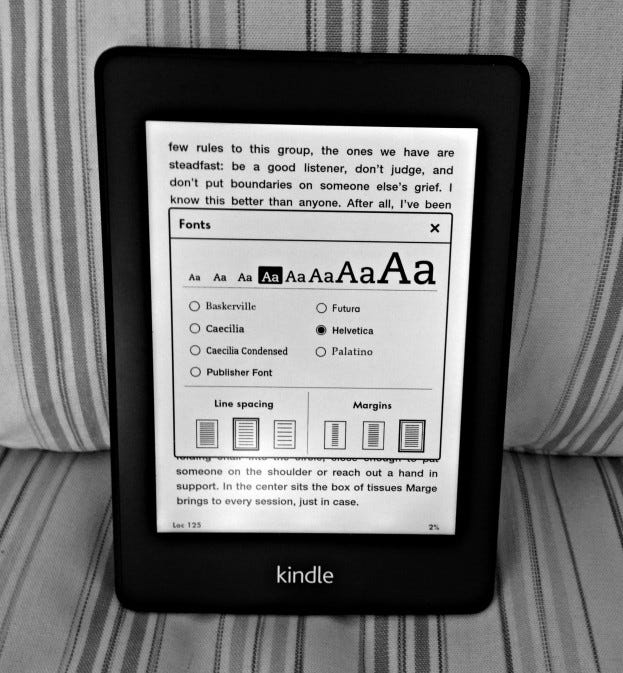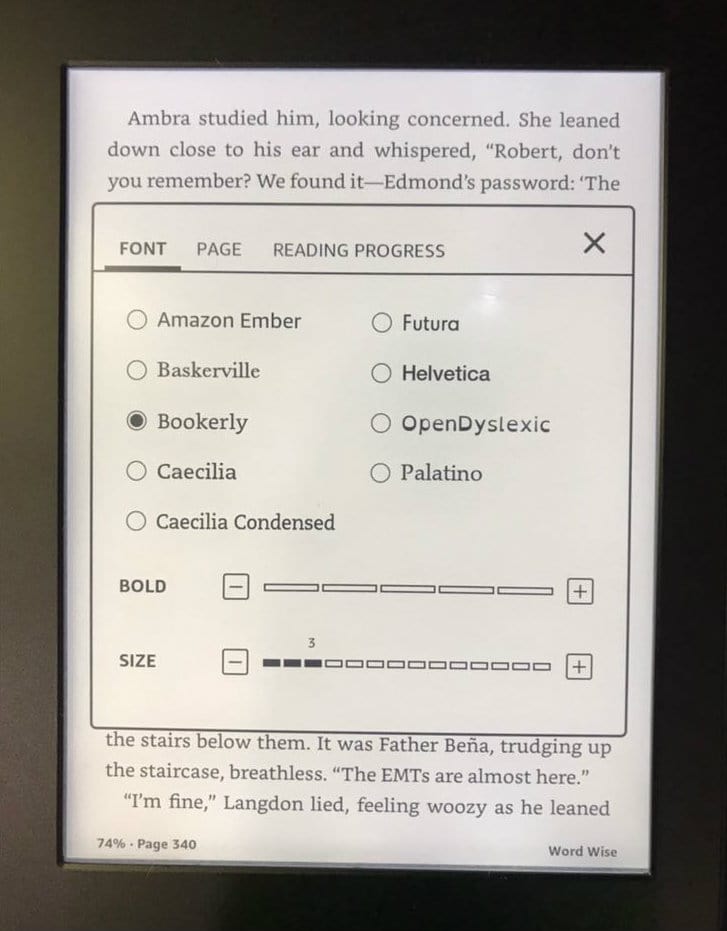
Fonts Supported By Kindle. I've got no problems with the default fonts, though; Which font is optimal for my kindle?
Luckily, the newer kindle fire offers a bit more variety. In example, i have a kobo ereader, and it is capable to do what you ask; Kindle fire supports all the common kindle ebook formats which are kf8 (azw3), azw, mobi and prc.
· 10m · edited 10m kindle paperwhite (2018 gen 4) variable weight fonts work fine. The kindle fire has a font set comprising 12 typefaces: Font embedding is not allowed;
I've Got No Problems With The Default Fonts, Though;
These are screen captures from kindle touch but k4 should have the same support (and kindle keyboard too, with latest update). Scratch that, i thought i had variable font literata installed but i. You don’t have to do anything, just get a hindi book for kindle and it will work as usual.